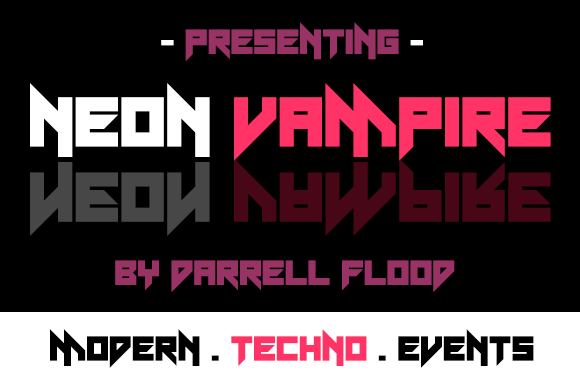
Welcome to the captivating world of Neon Vampire Font, an extraordinary display font that exudes an aura of modernity and futuristic flair. Picture a font that seamlessly blends sharp angles and sleek lines, creating a visual symphony that transports you to a realm of techno rhythm and electrifying science fiction themes. Enter the realm of Neon Vampire, a font that captivates and enthralls.
Crafted by the visionary font designer, Dadiomouse, Neon Vampire is a tour de force in typography. Its striking angular design and futuristic aesthetic evoke a sense of innovation and cutting-edge style. This display font is a perfect match for those seeking to make a bold statement with their designs.
Imagine your words pulsating with energy, as if charged with the vibrant aura of a techno dance floor. Picture your designs radiating a futuristic allure, as if plucked straight from a sci-fi masterpiece. With Neon Vampire Font, the possibilities are endless.
Unleash your creativity and embark on a typographic adventure, where the ordinary transforms into the extraordinary. Let Neon Vampire elevate your designs to new heights, captivating your audience with its futuristic charm. Join the ranks of those who dare to embrace the unconventional, and let your designs shine with otherworldly brilliance.